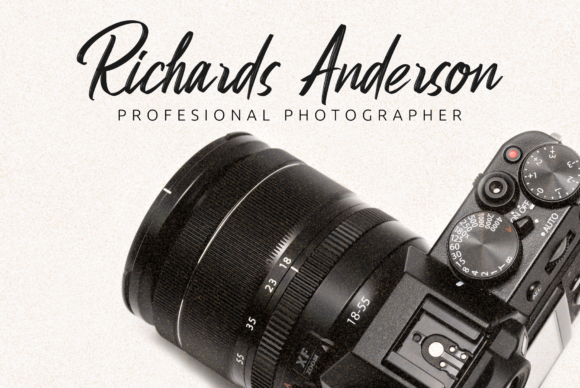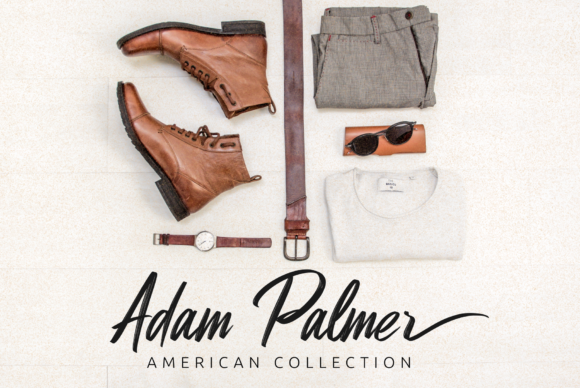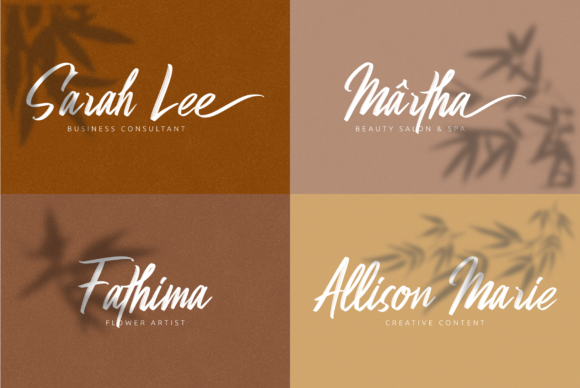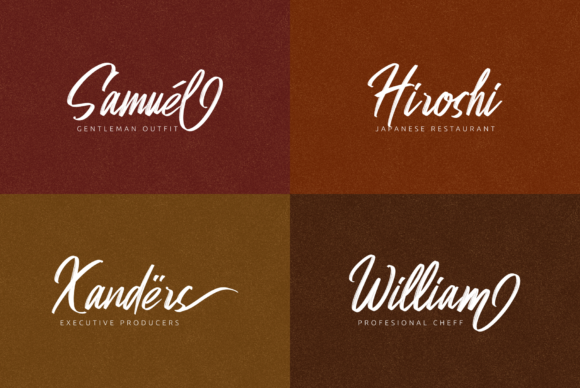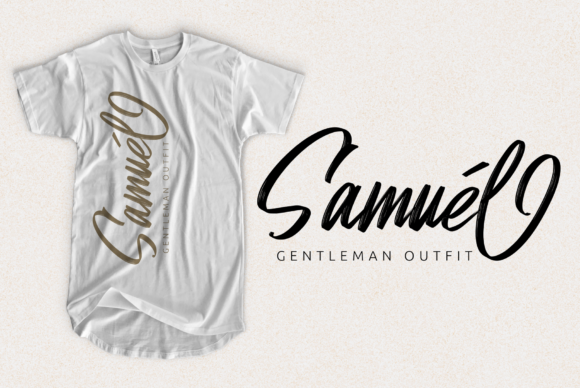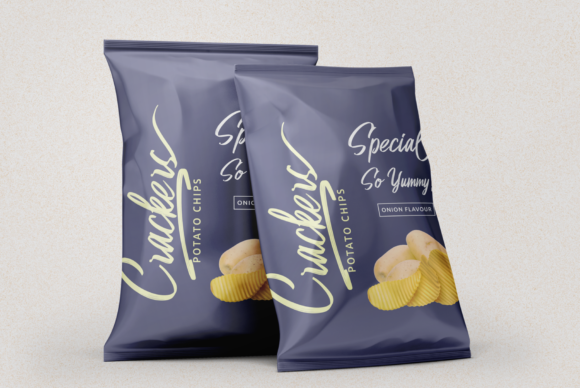
Introduction to Hibrush Font
Hibrush is a unique and stylish script font with a distinctly modern vibe.
Fall in love with its authentic vibe .
Key Features of Hibrush Font
Why Choose Hibrush Font?